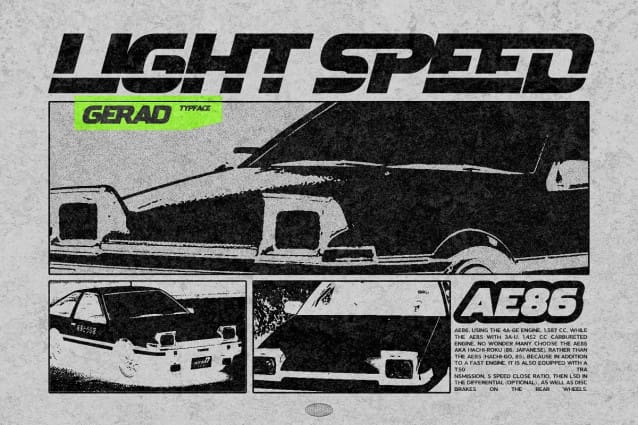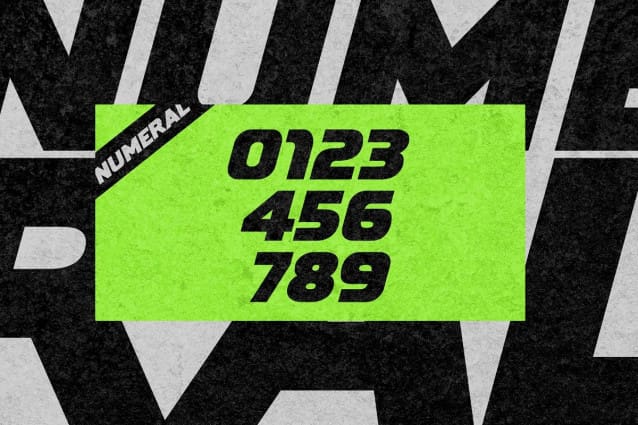
Gerad Display Font
Gerad Display Font, is a Industrial Modern Stencil Font from Drizy studio. Offering all the basic styles you will need for a modern theme of your project.